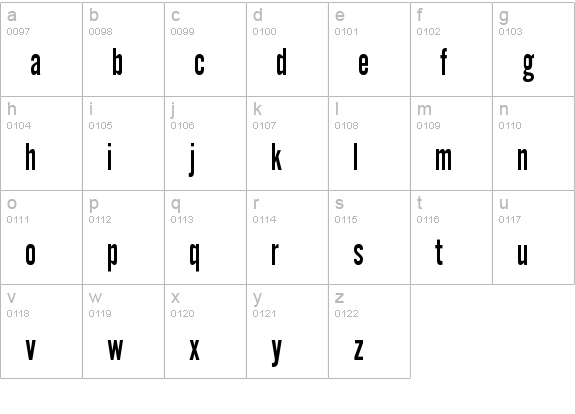
The AlternateGothicEF-NoOne font is a striking and modern typeface that exudes a sense of edgy elegance. Its sleek lines and sharp angles give it a distinct personality that is perfect for making a bold statement in your designs. Whether you're creating posters, logos, or branding materials, this font will surely catch the eye of your audience. The best part about AlternateGothicEF-NoOne font is that it is free to download at FontsMarket.com. You can easily access this unique and stylish font to elevate your projects without any cost. Don't miss out on the opportunity to add this versatile typeface to your design arsenal and unleash your creativity today.